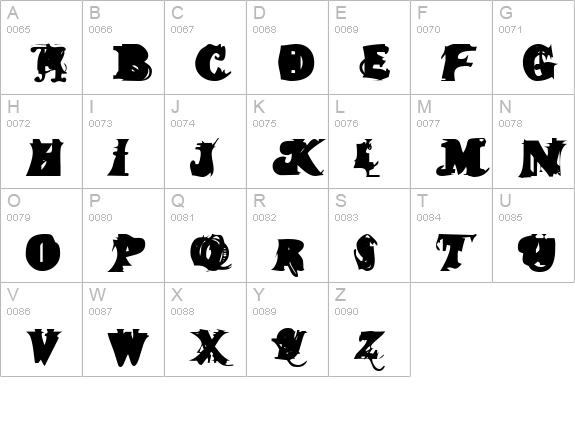
Again and Again Font Details
Introducing Again and Again font, a captivating typeface that will leave a lasting impression on your audience. This elegant and versatile font is perfect for a wide range of design projects, from branding to editorial design and everything in between. The unique curves and intricate details of Again and Again font will add a touch of sophistication to any project. What's even better is that Again and Again font is available for free download at FontsMarket.com. Yes, you read that right – you can get your hands on this stunning font without spending a dime. Whether you're a seasoned designer looking to add a fresh new font to your collection or a beginner searching for the perfect typeface for your next project, Again and Again font has got you covered. Don't miss out on this fantastic opportunity to elevate your designs with the beauty and elegance of Again and Again font. Download it for free today and let your creativity soar!